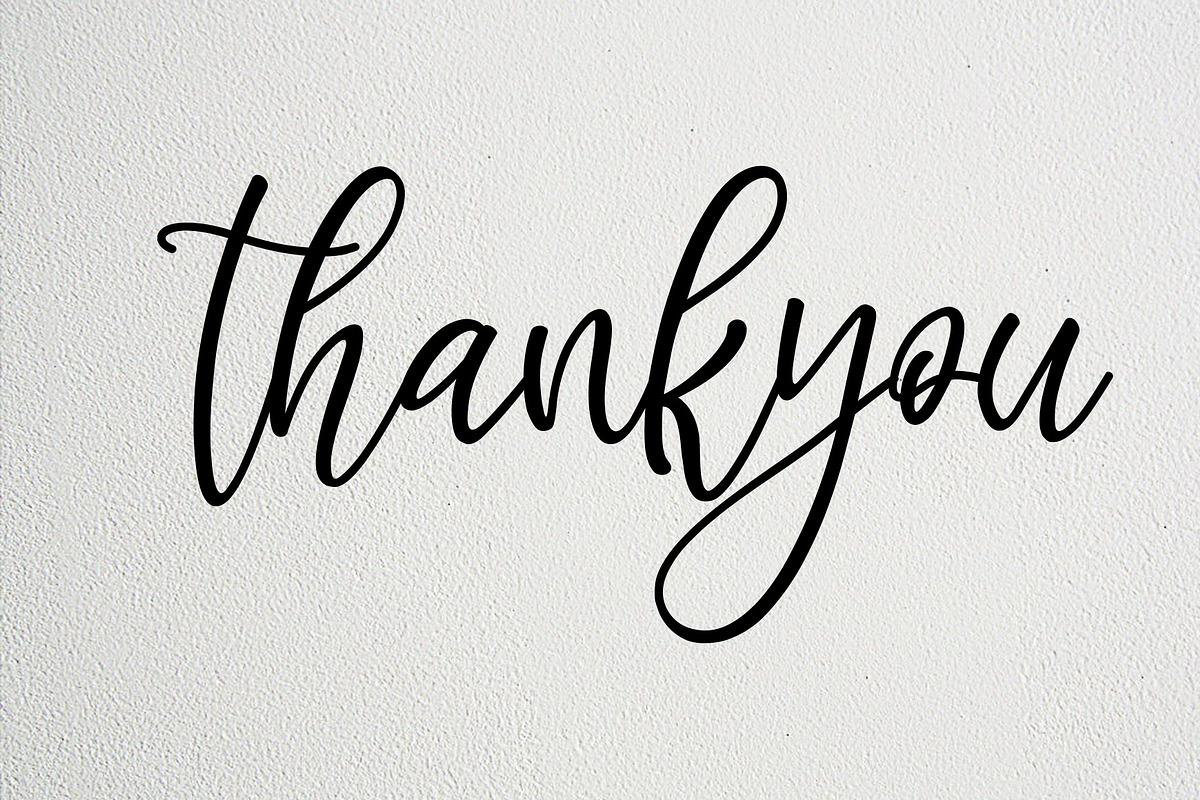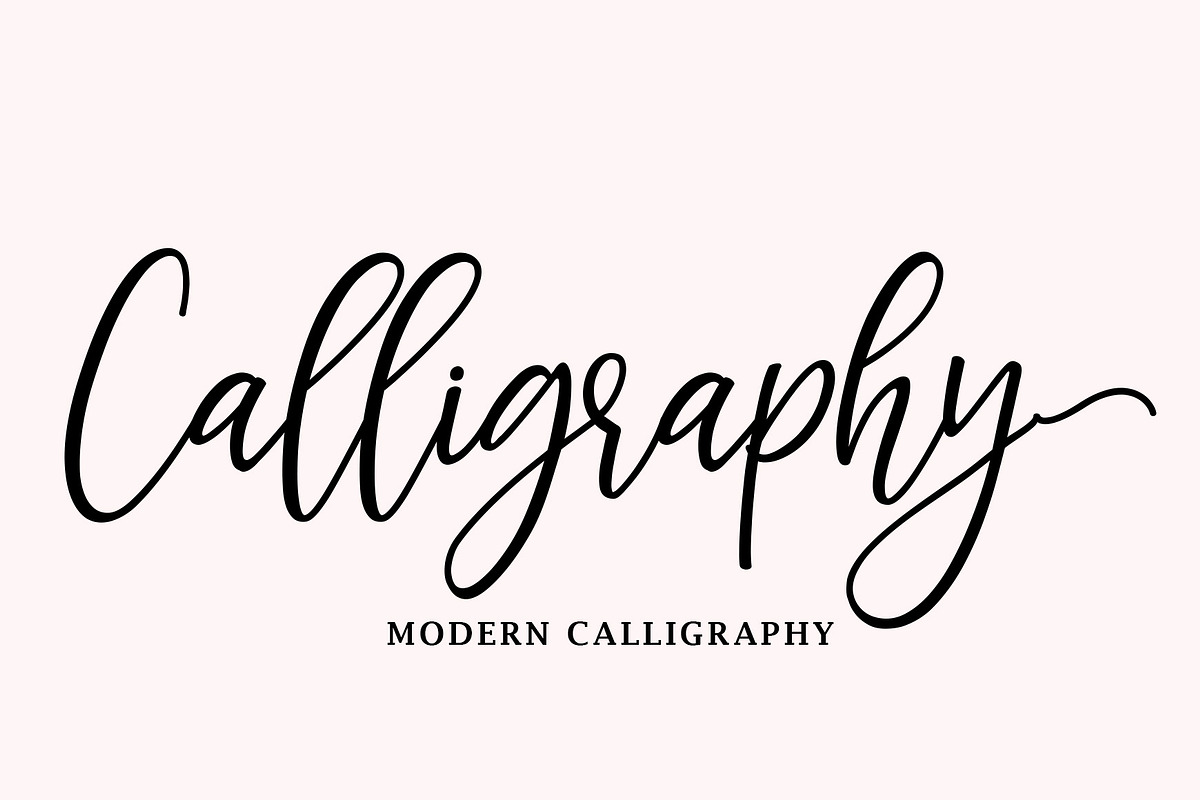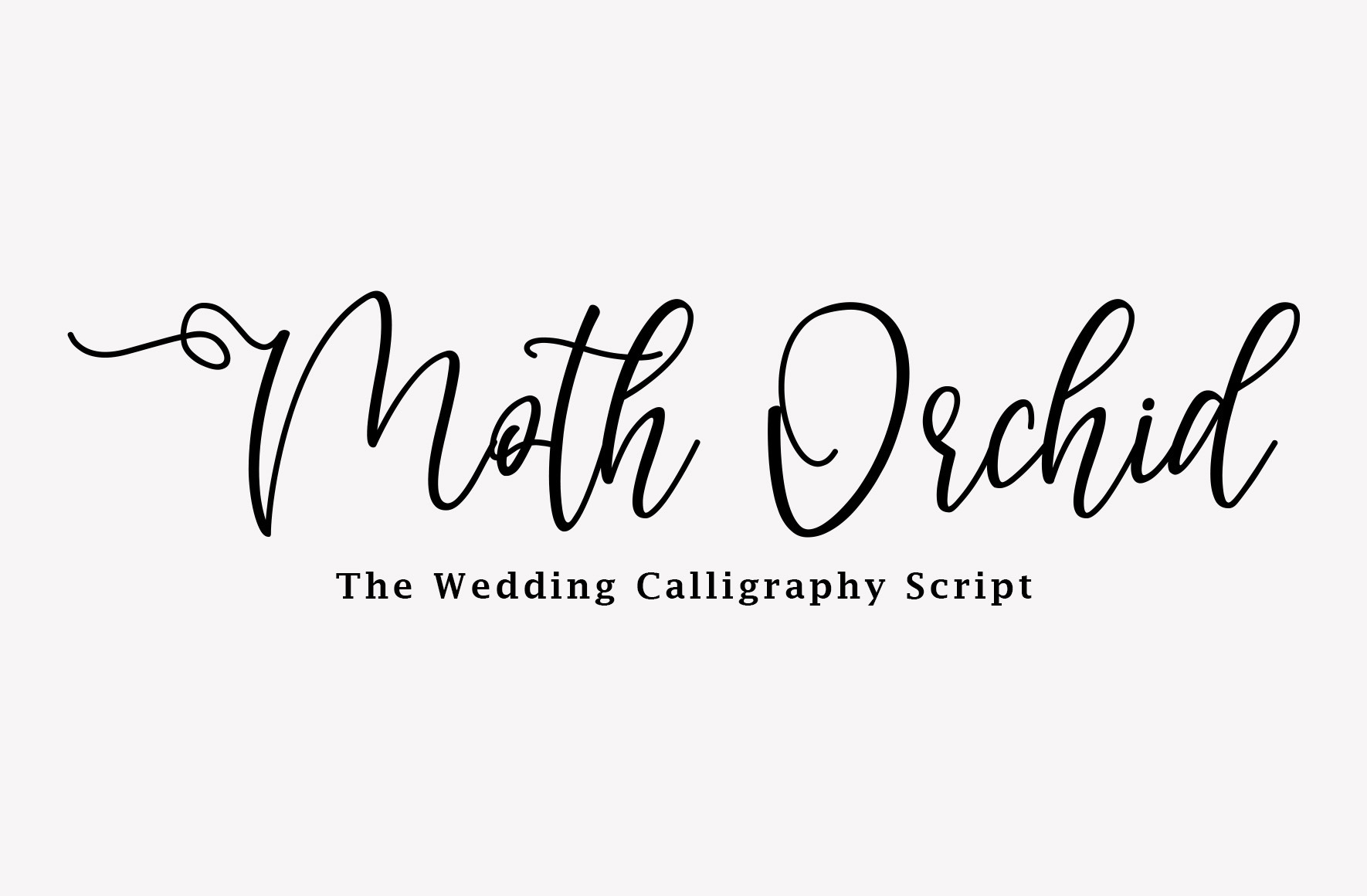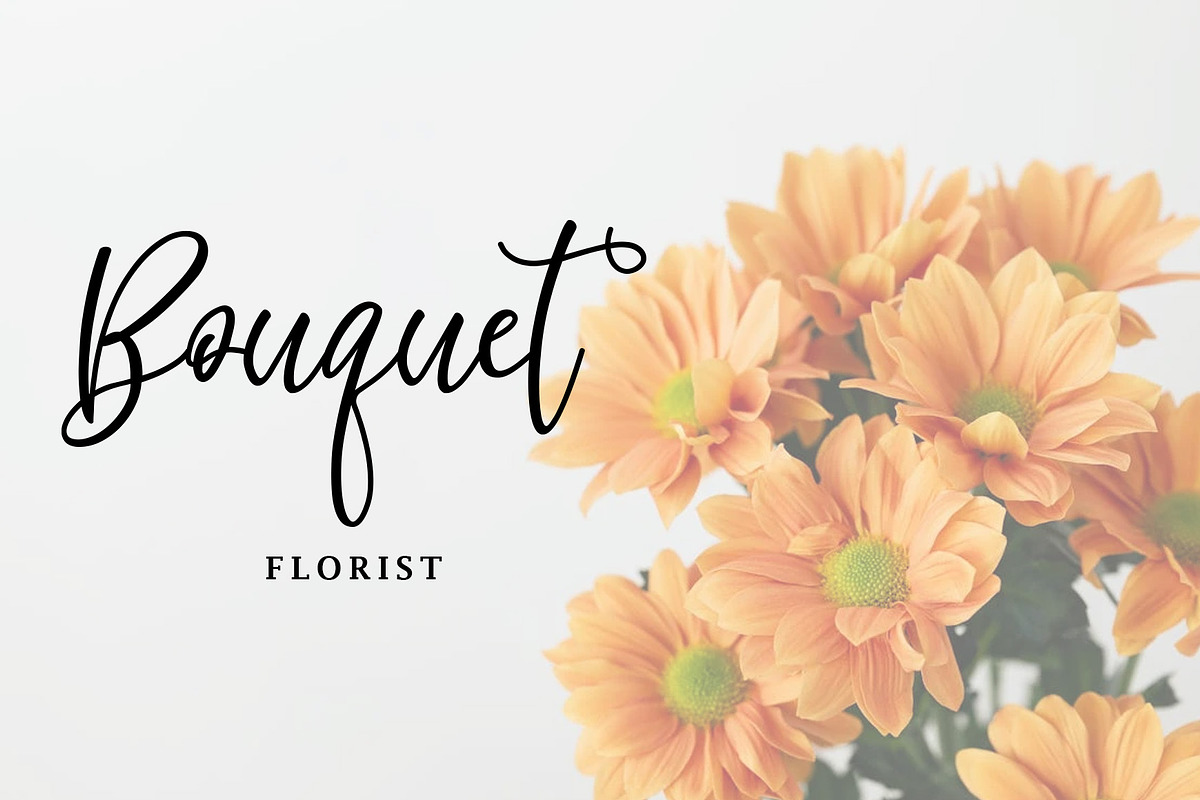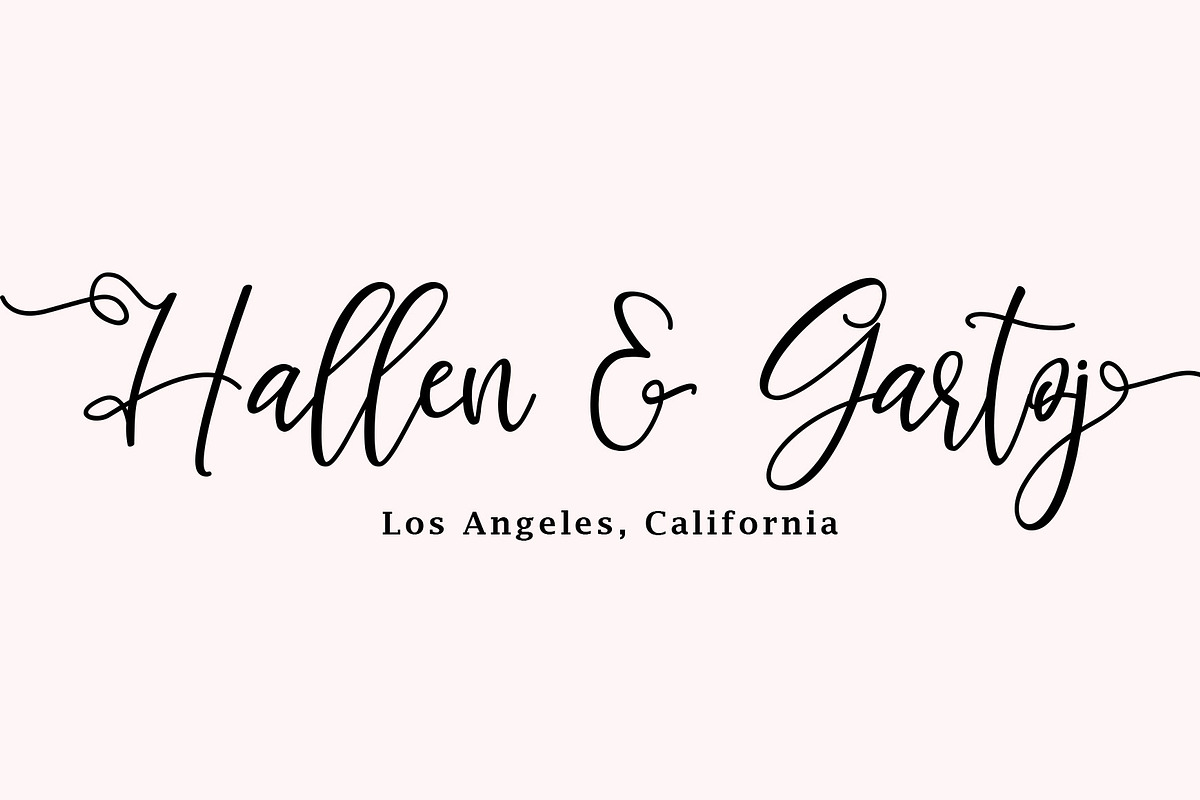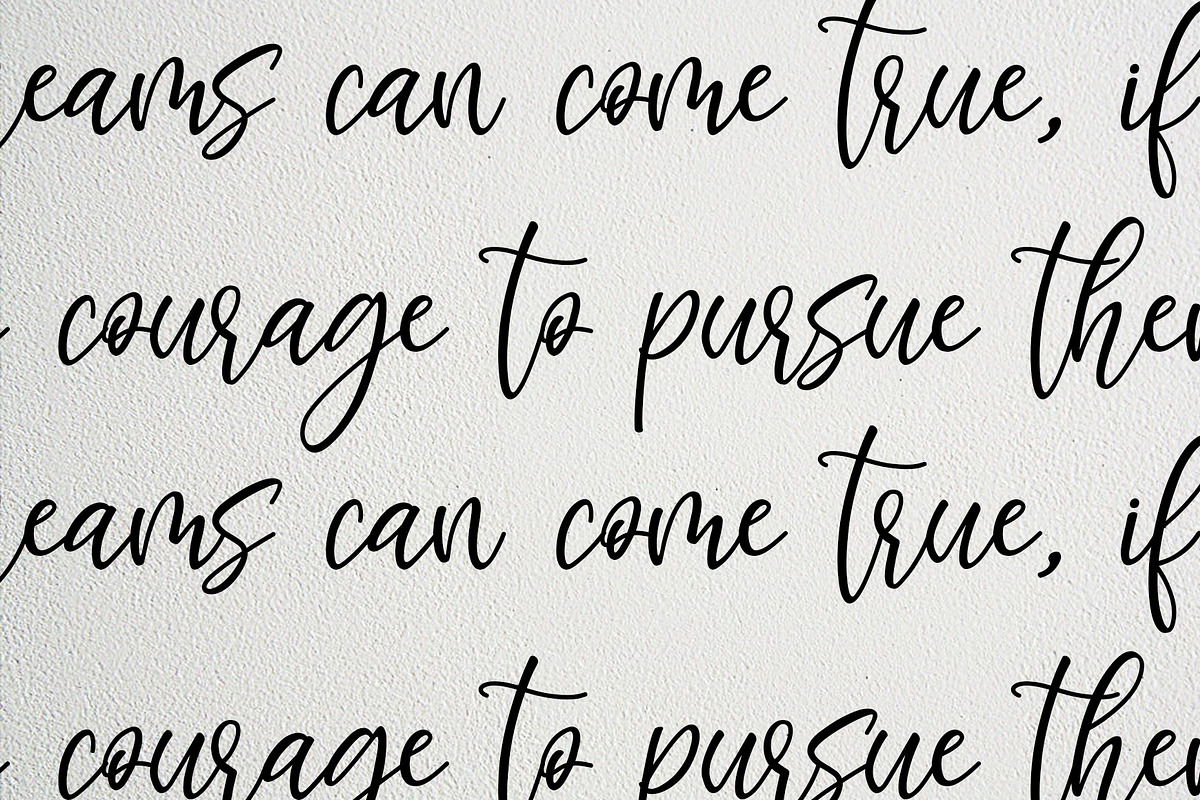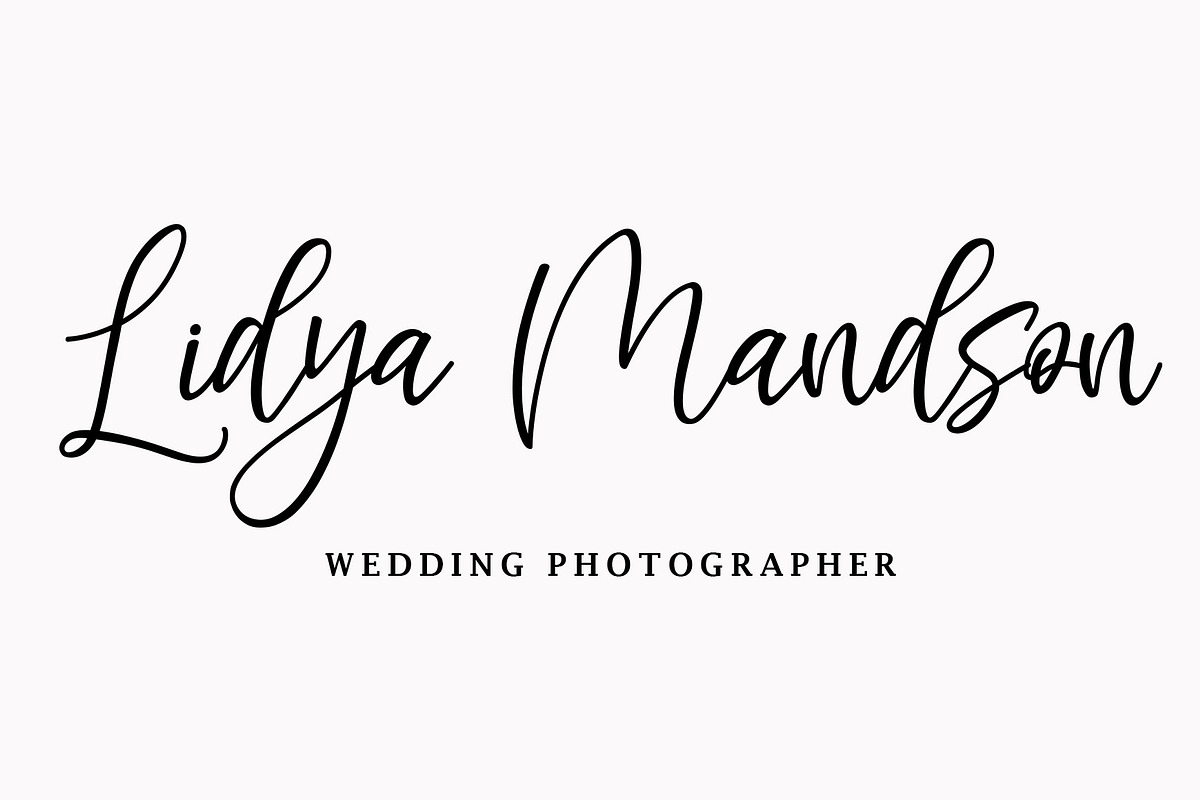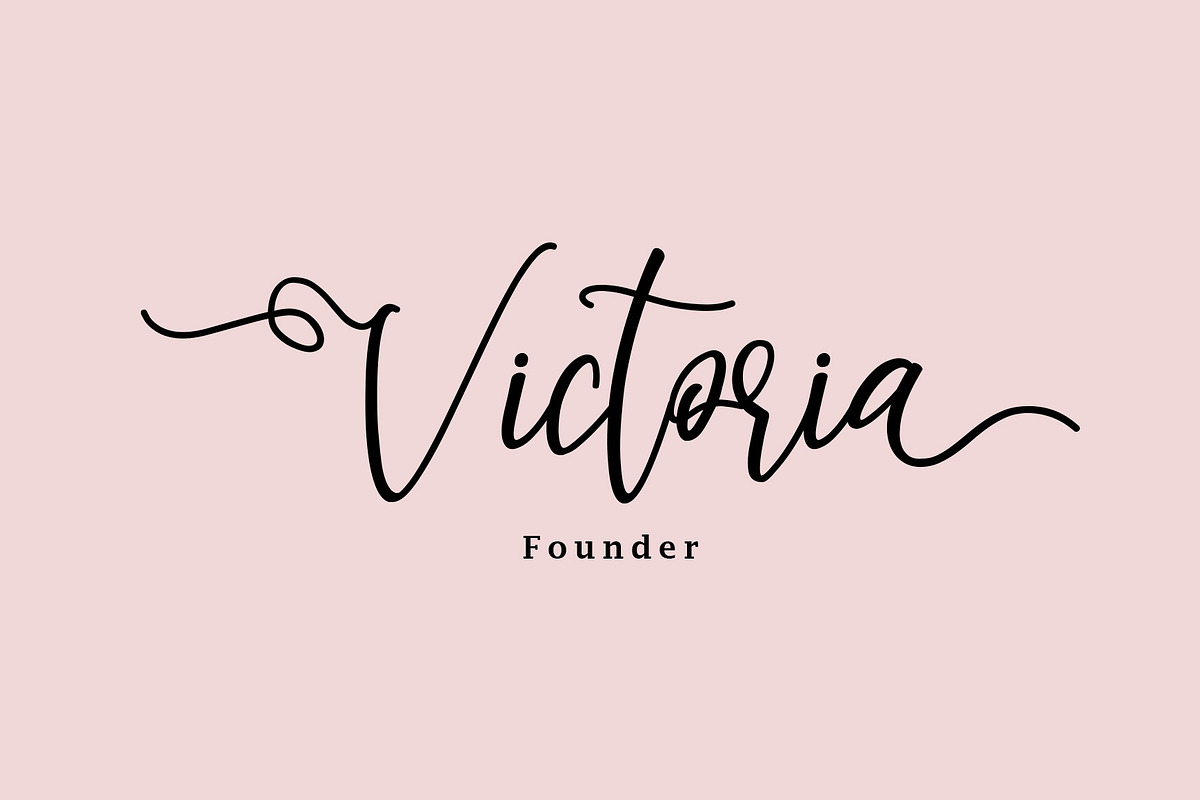
Moth Orchid Wedding Calligraphy Font
Moth Orchid is a modern script font. The playful and beautiful characters make it the perfect font for creating stunning art. Fall in love with its authentic feel and use it to create gorgeous wedding invitations, beautiful stationary art, eye-catching social media posts, and cute greeting cards.